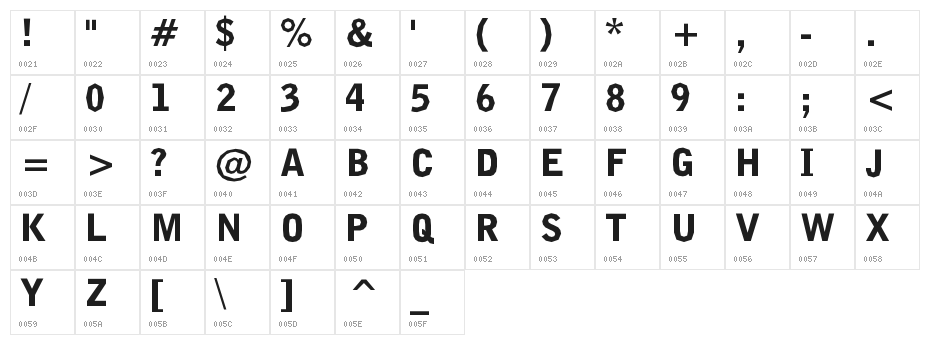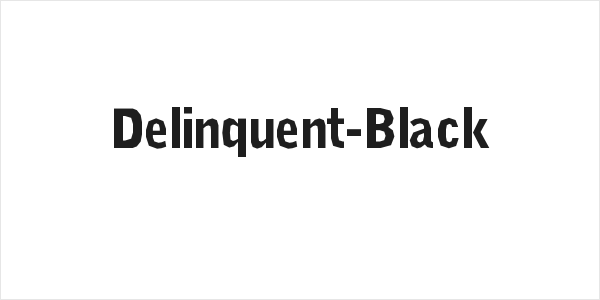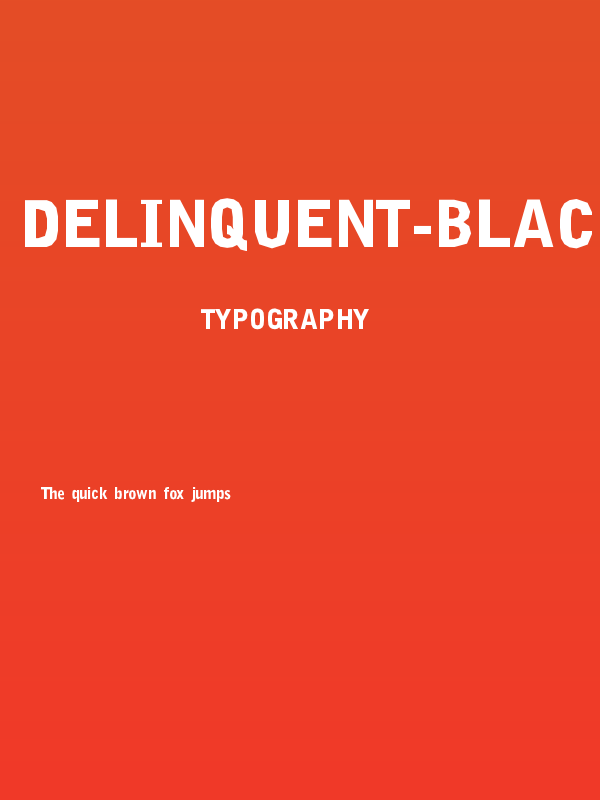
Delinquent-Black Font
Delinquent-Black Description
This font features a bold and assertive style with a strong presence. The characters are blocky and angular, giving it a rugged and edgy appearance. The uppercase and lowercase letters maintain a consistent weight, contributing to a uniform look. The numerals are equally bold, ensuring readability and impact. Special characters are designed with the same boldness, making them stand out. This font is ideal for projects that require a strong visual statement, such as posters, headlines, or branding materials.
| Proposed Projects | Ideal for posters, headlines, branding materials, and any project needing a strong visual impact. |